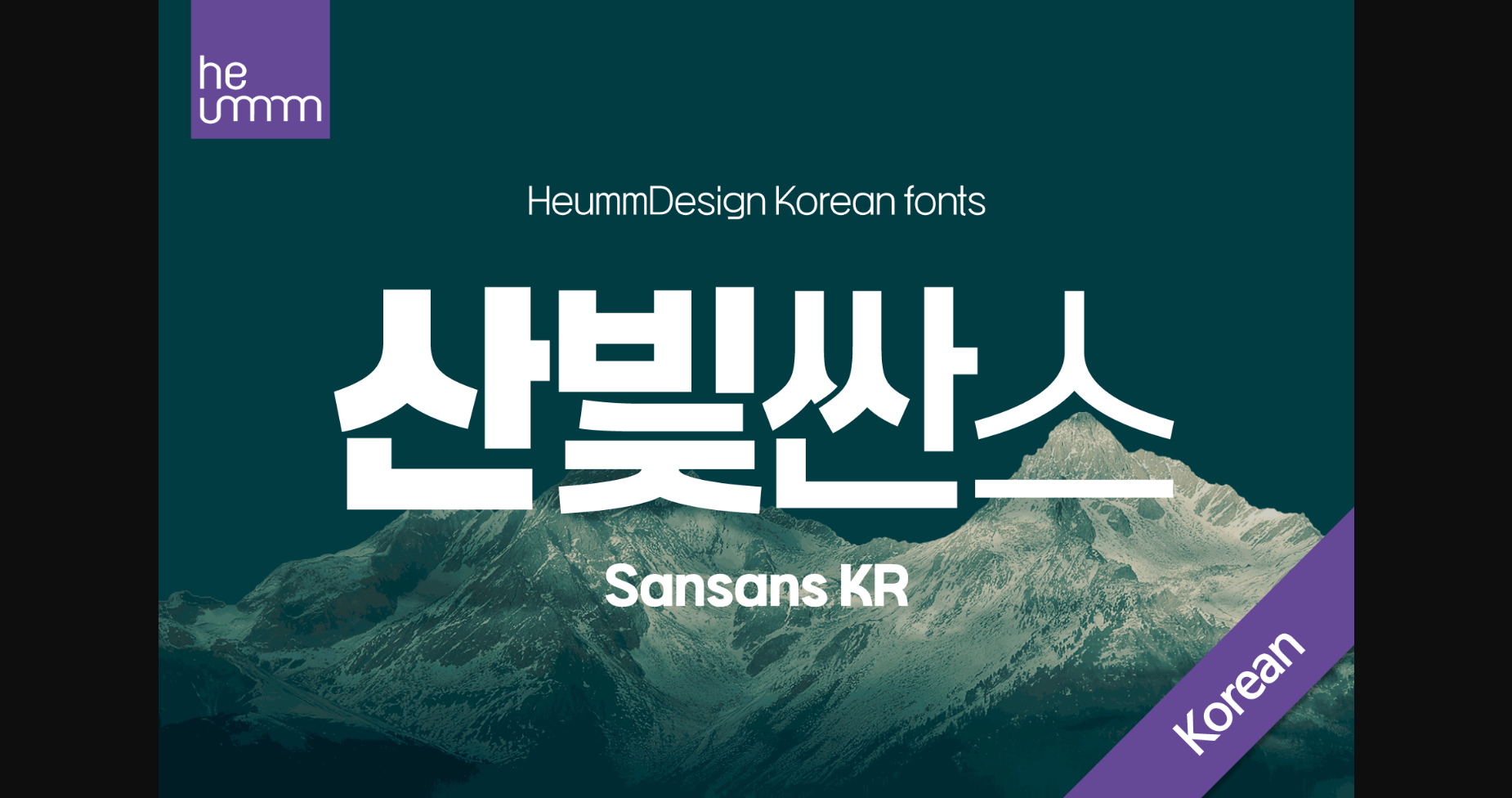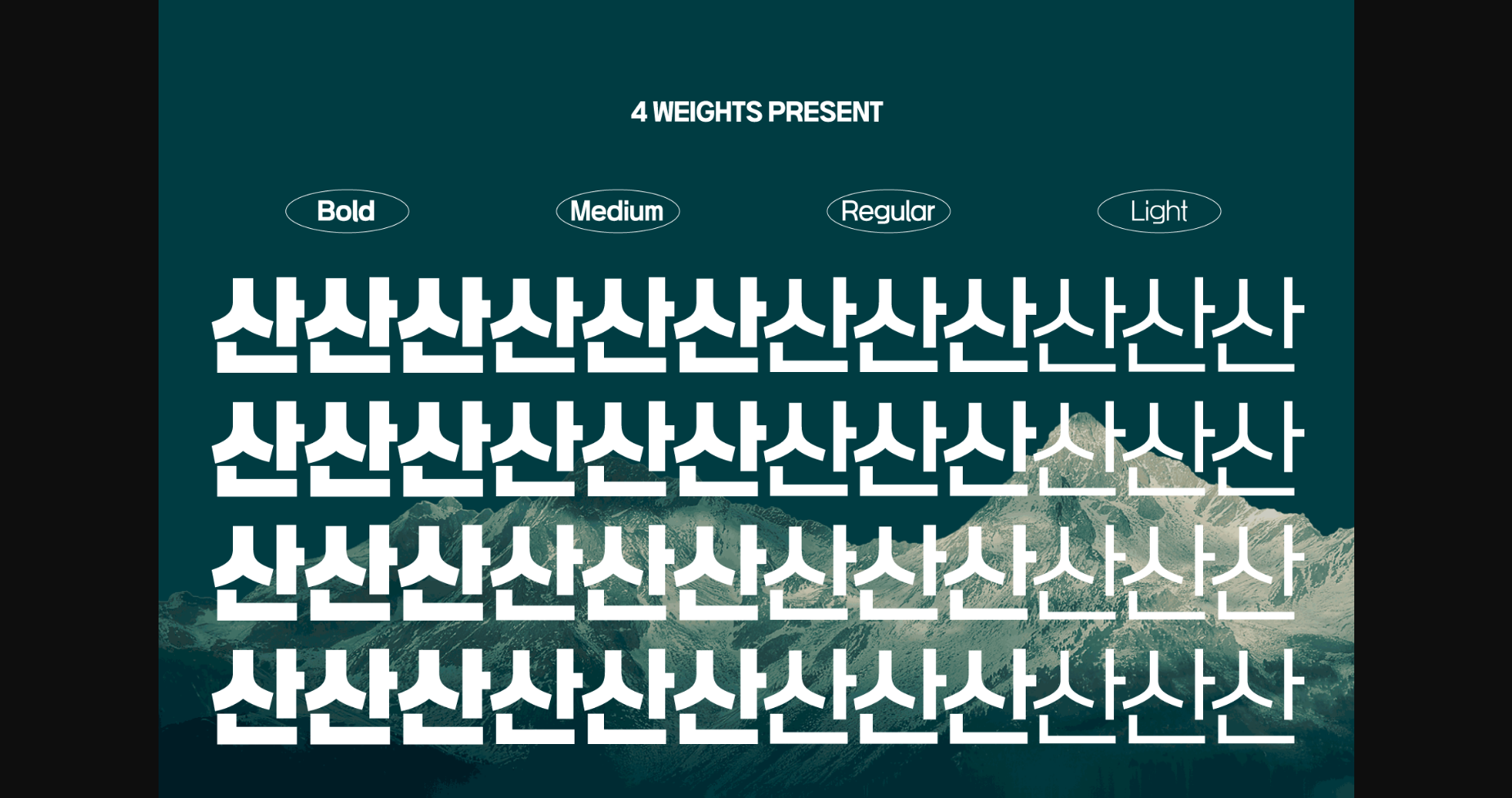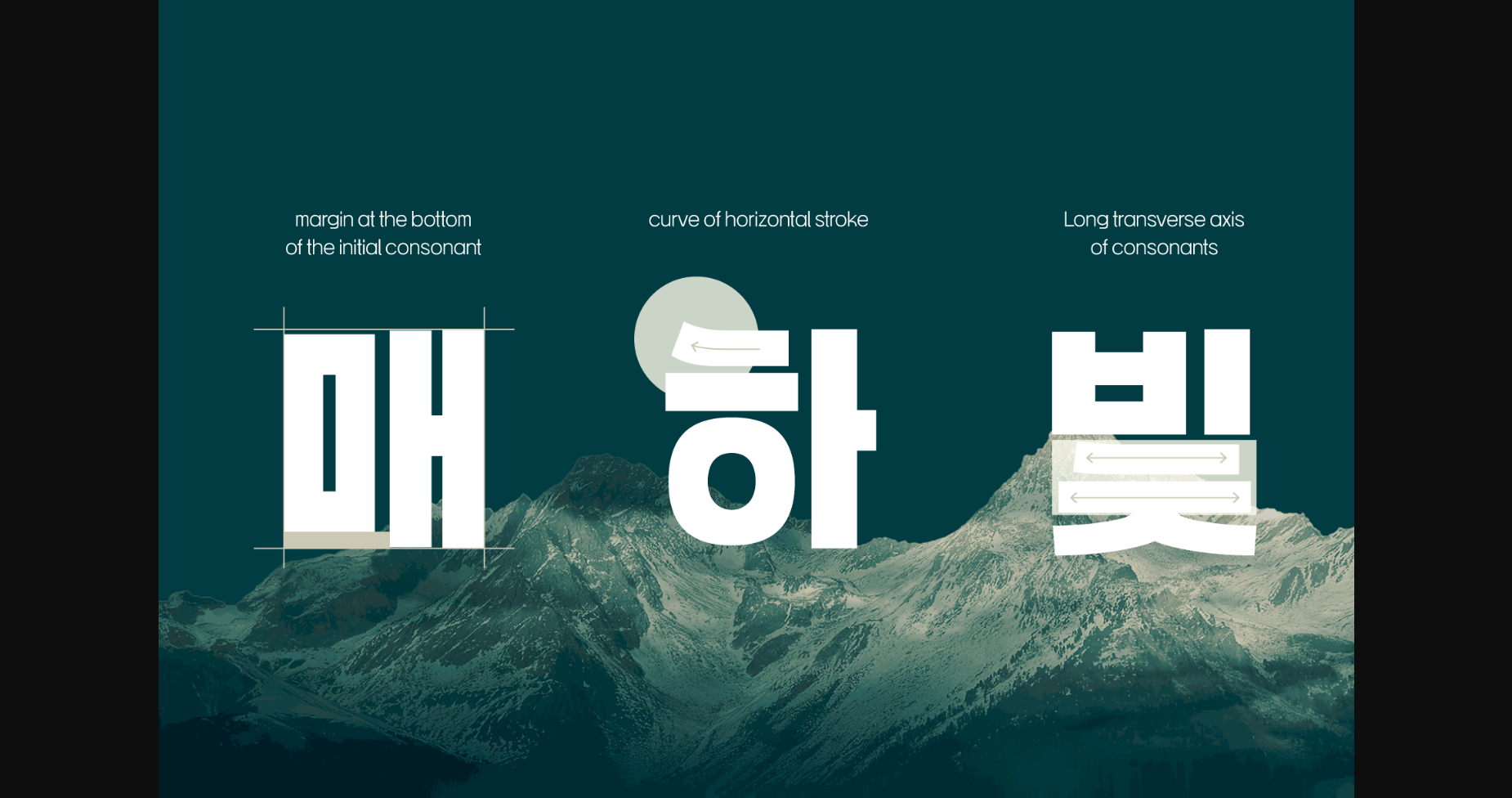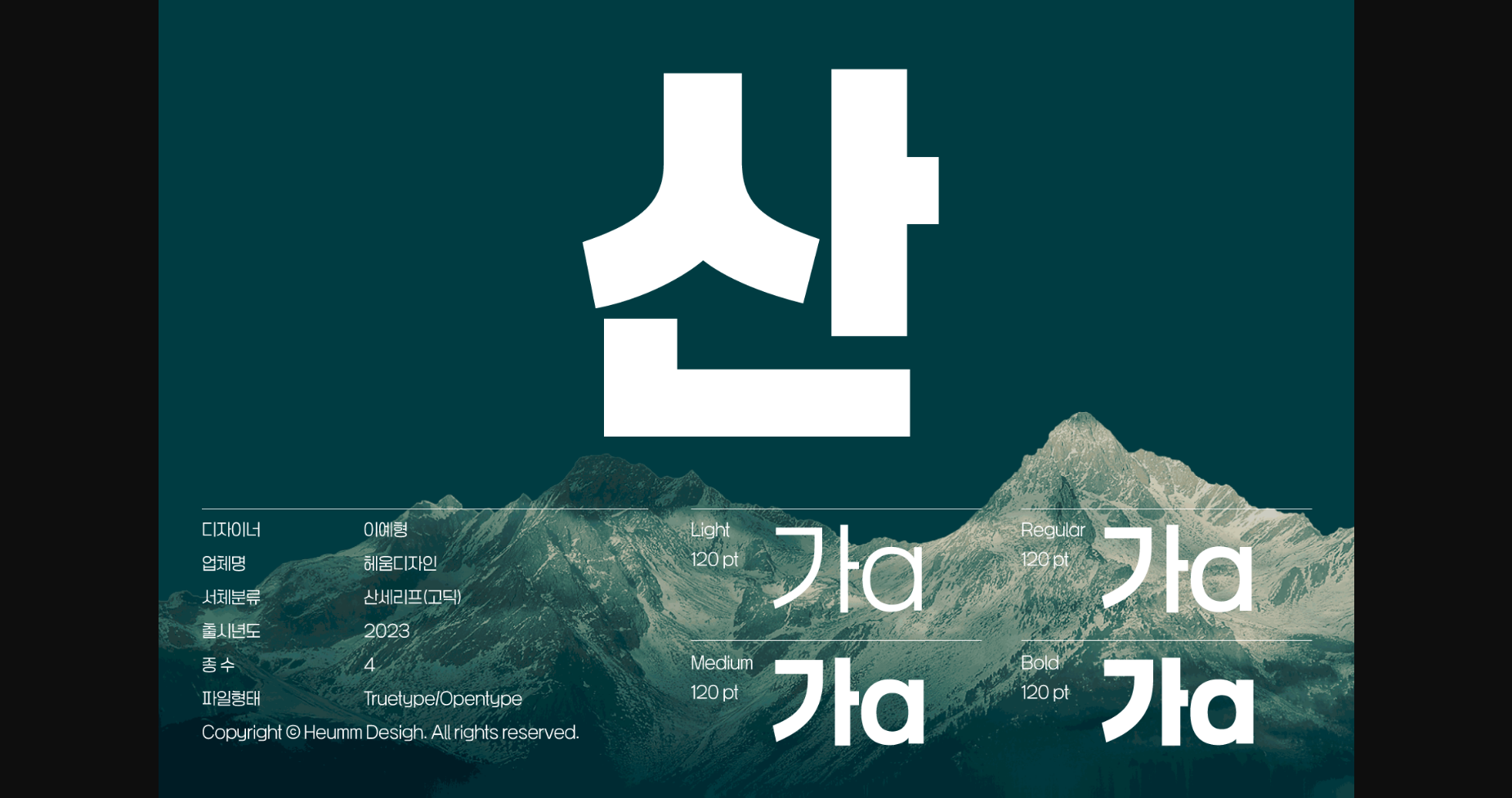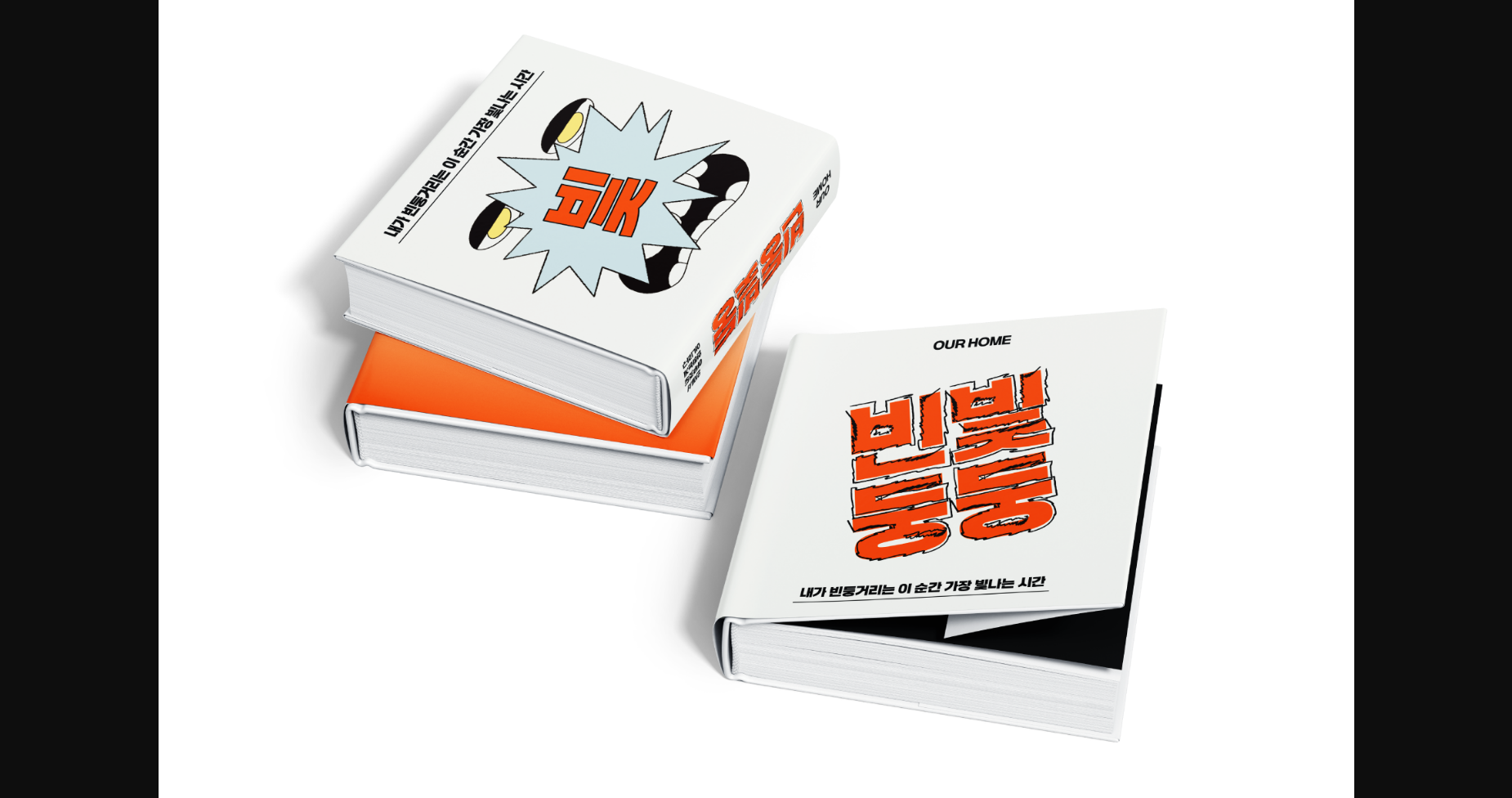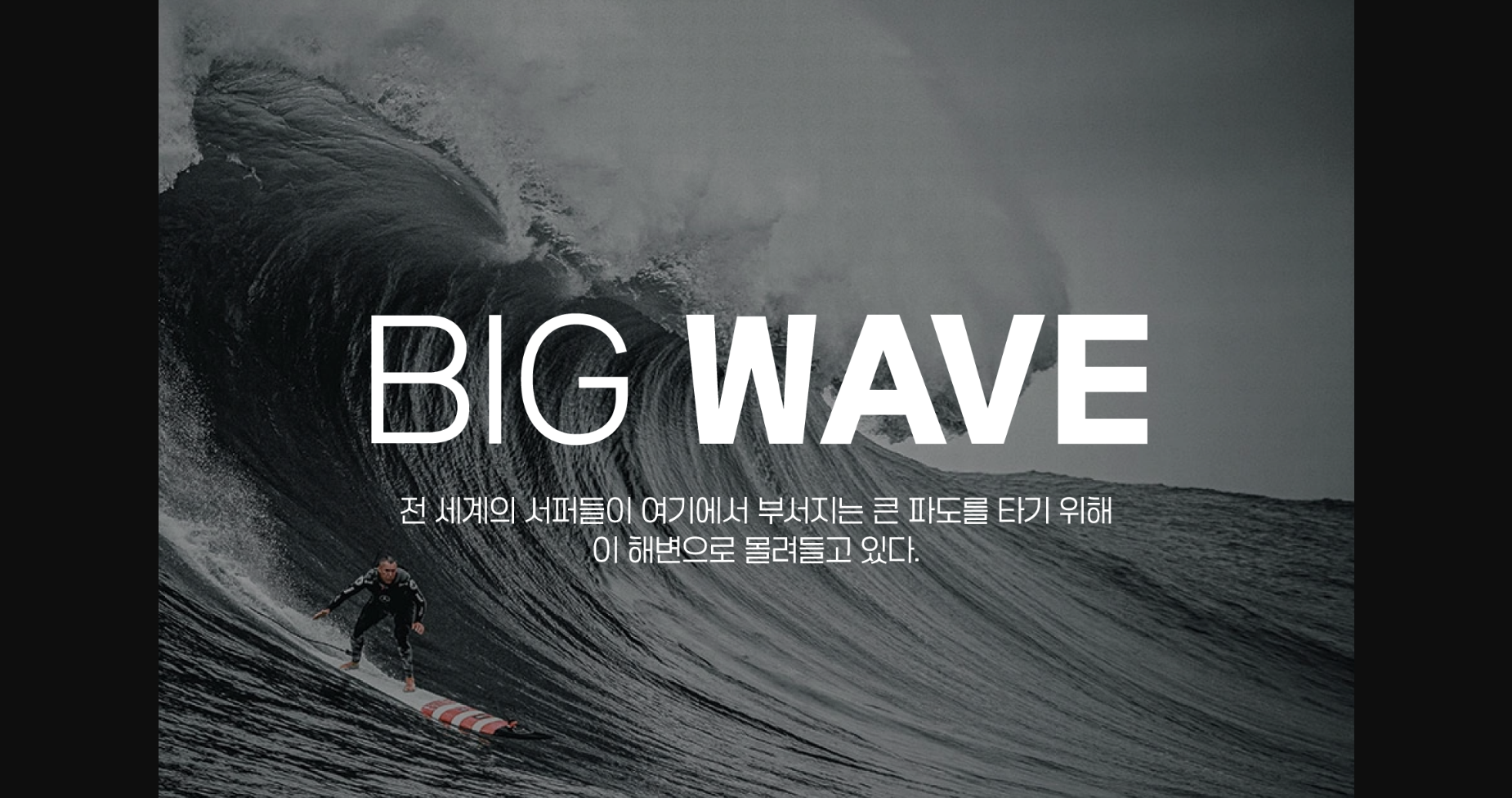
About Sansans Kr Font
Sansans KR is a San-serif Korean font.
It is a solid and trendy full square typeface that contains powerful and bright energy.
I created a young and bright feeling by making a blank at the bottom of the first consonant of the initial letter, and the curve of the first part continued the bright feeling of the font. By configuring 4 types of font families, the usability of typefaces has been increased.
It is a solid and trendy full square typeface that contains powerful and bright energy.
I created a young and bright feeling by making a blank at the bottom of the first consonant of the initial letter, and the curve of the first part continued the bright feeling of the font. By configuring 4 types of font families, the usability of typefaces has been increased.